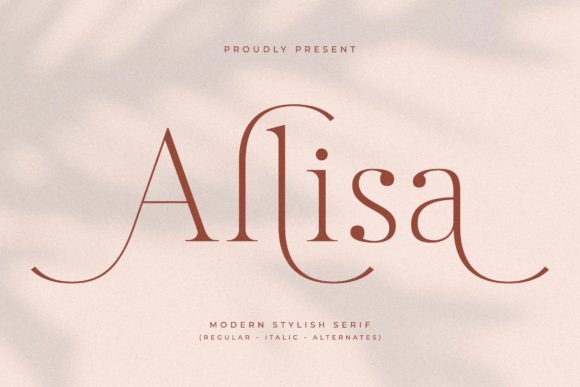
The Birth of a Timeless Classic: Allisa Font
Have you ever been working on a design project and suddenly, a single font can transport you to a world of elegance and sophistication? That’s exactly what happened to me when I discovered the Allisa Font. As a designer, I’ve always been on the lookout for fonts that can elevate a design from ordinary to extraordinary.
And that’s precisely what the Allisa Font does. This stunning serif typeface is a masterclass in balance and harmony, with a unique style that’s both modern and classic. Whether you’re designing a luxury logo, a book title, or a fashion brand, the Allisa Font is the perfect choice to convey sophistication and refinement.
As a valuable addition to any designer’s toolkit, the Allisa Font is a game-changer for anyone looking to create high-end designs that exude luxury and style.
Allisa Font Key Features
- Unique Characteristics: Allisa Font features a unique blend of modern and vintage elements, making it perfect for creative projects
Allisa Font Review
I’ve had the chance to work with the Allisa font, and here’s my honest take.
- Unique flair: Allisa has a distinct personality that sets it apart from more generic fonts.
- Legibility: Despite its quirky nature, Allisa remains legible even at smaller font sizes.
- Flexibility: It works well for both body text and headlines.
- Overuse risk: The font’s personality can be overwhelming if used excessively.
- Lack of versatility: Allisa may not be the best choice for complex, technical content.
- Not ideal for small text: While legible, Allisa’s flair may make small text difficult to read.
Allisa is a bold, attention-grabbing font that’s perfect for projects where you want to make a statement. It’s not for every occasion, but when used thoughtfully, it can add a unique touch to your design. Just be mindful of its limitations, and use it in moderation.
Tips: Use Allisa Font for titles and headings to add a touch of elegance and sophistication. Experiment with different font sizes and styles to create visual interest.
Tips: Use Allisa Font to create custom graphics, logos, and typography-based designs. Experiment with layer styles and effects to add depth and texture.
Tips: Use Allisa Font for headings and titles to add a touch of professionalism and sophistication. Experiment with different font sizes and styles to create visual interest.
Allisa Font is suitable for:
- Typography-based designs
- Formal and professional documents